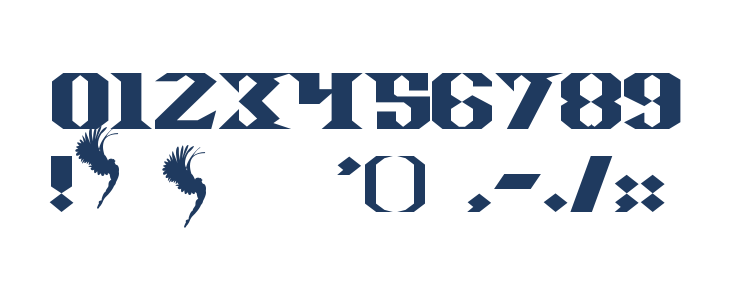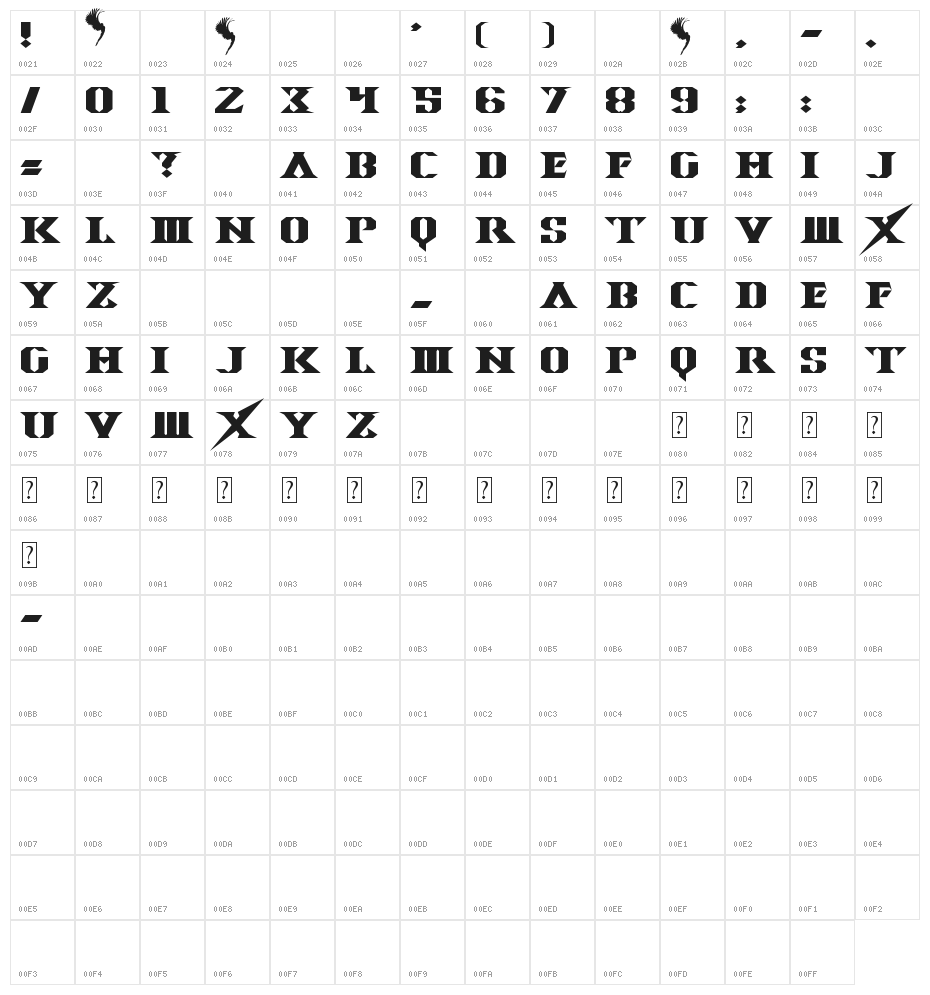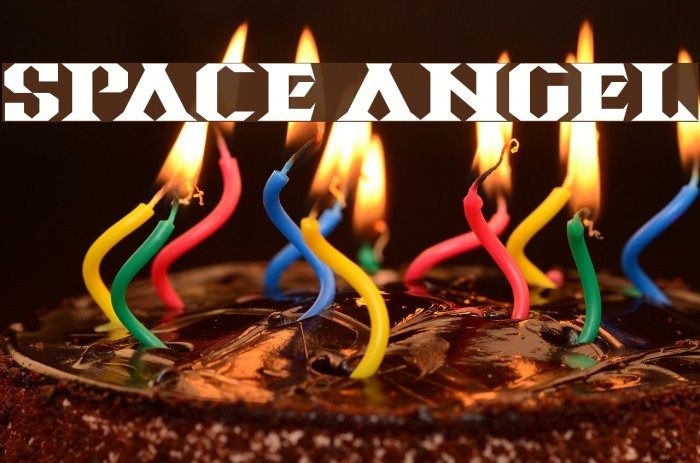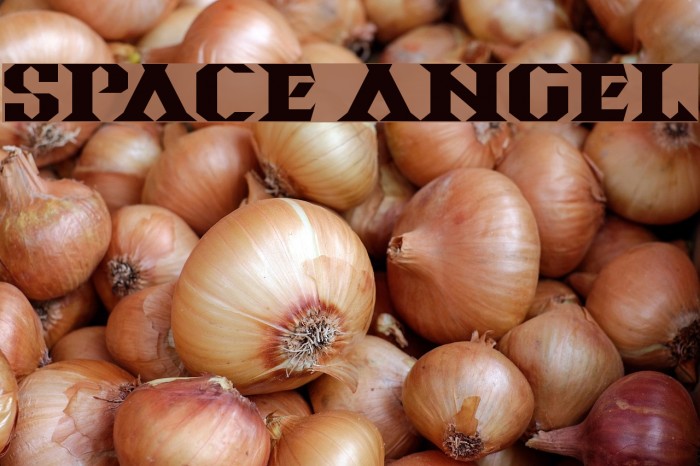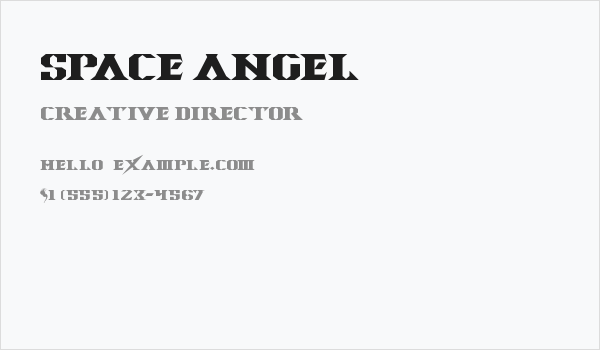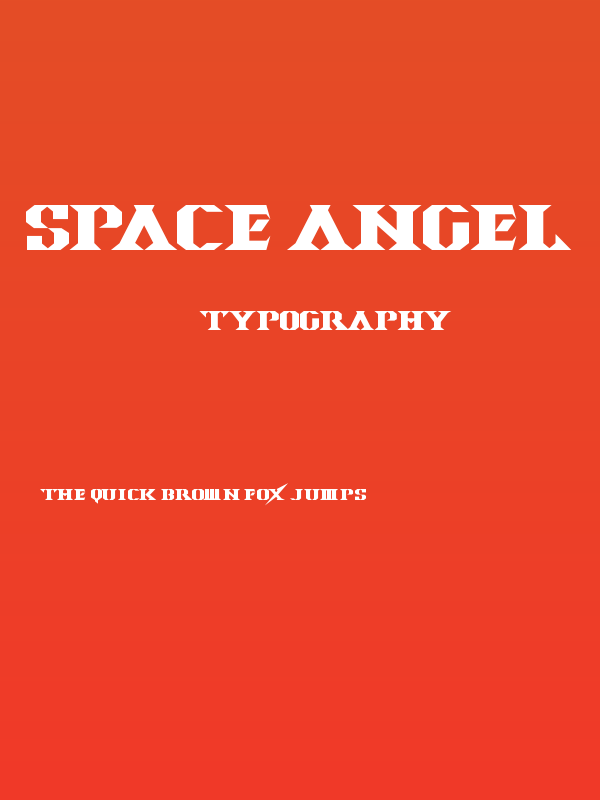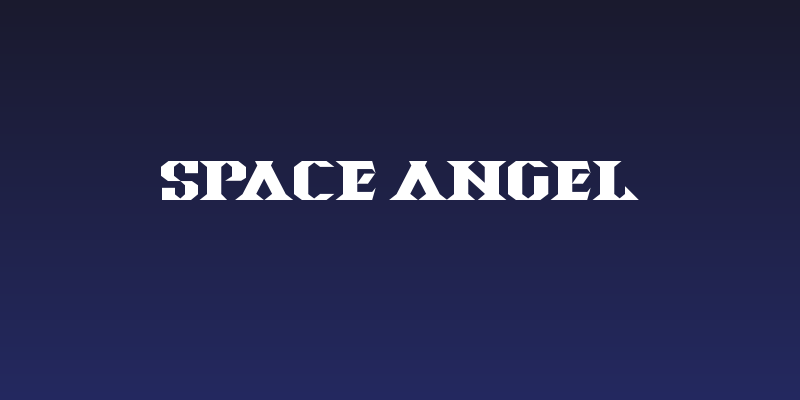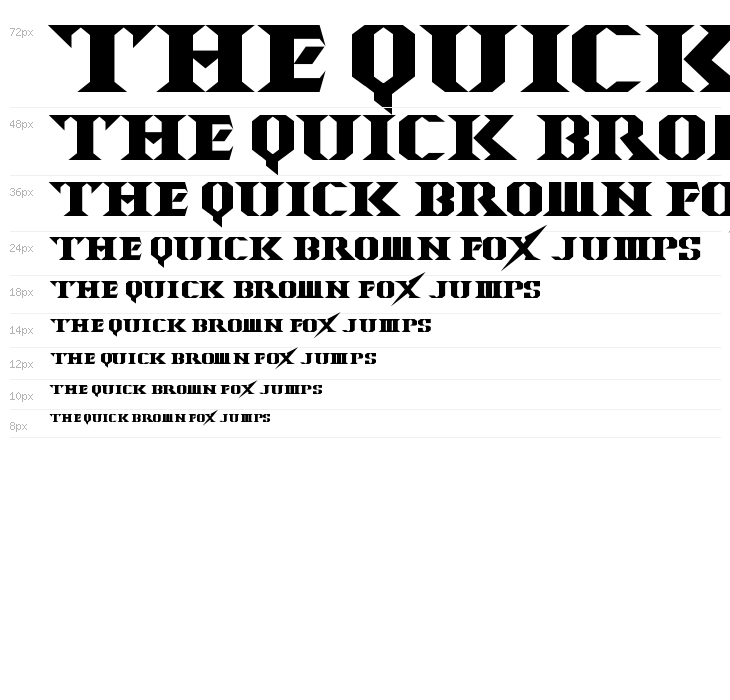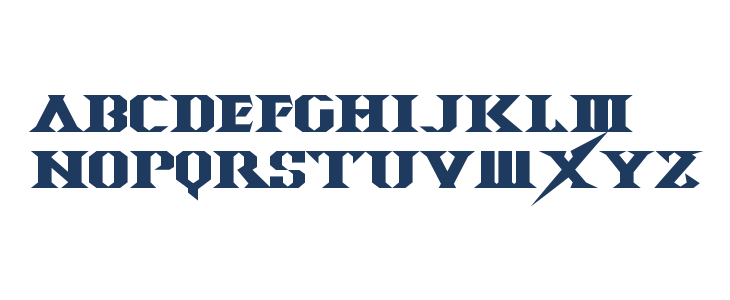
Space Angel Font
Space Angel Description
This font features a bold and striking design with angular and geometric elements, creating a futuristic and edgy appearance. The uppercase letters are characterized by sharp edges and unique cutouts, giving them a dynamic and aggressive look. The numbers and special characters follow the same design principles, ensuring consistency across all glyphs. The font's style is reminiscent of sci-fi and cyberpunk aesthetics, making it ideal for projects that require a modern and unconventional typeface.
| Overall Style | Futuristic, Edgy |
| Proposed Projects | Ideal for sci-fi movie posters, video game titles, tech branding, and futuristic-themed designs. |